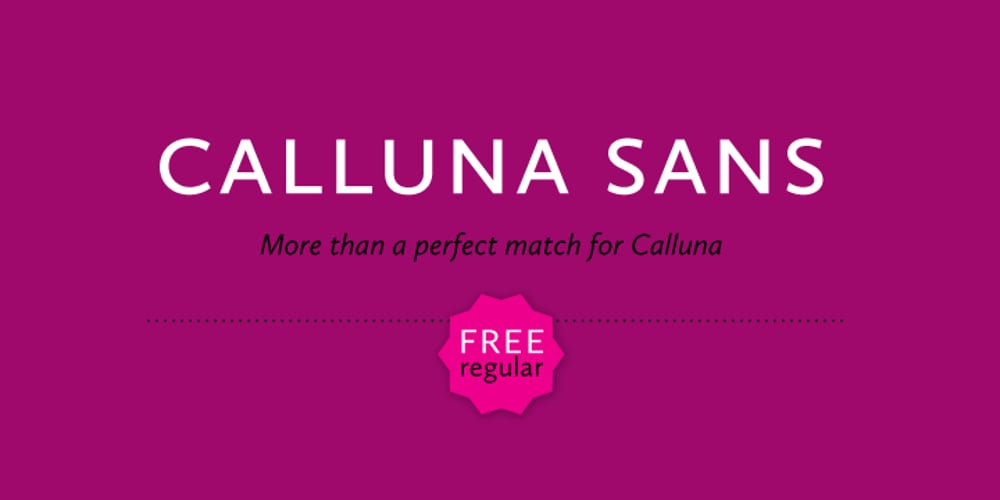
Calluna Sans
Calluna Sans font
Calluna Sans Font Family was designed by Jos Buivenga and published by exljbris. Calluna Sans contains 10 styles and family package options. Calluna Sans was designed by Jos Buivenga of exljbris font foundry. The Calluna Sans typeface family is a humanist sans based on the popular Calluna serif fonts. It has true italics and OpenType typographic features including small caps, figure styles, ligatures and more. There are 716 glyphs in each font, with extensive language coverage. The Calluna Sans family has 10 fonts: 5 weights each with a matching italic.Check out Calluna™ which is a great pair for Calluna Sans™.